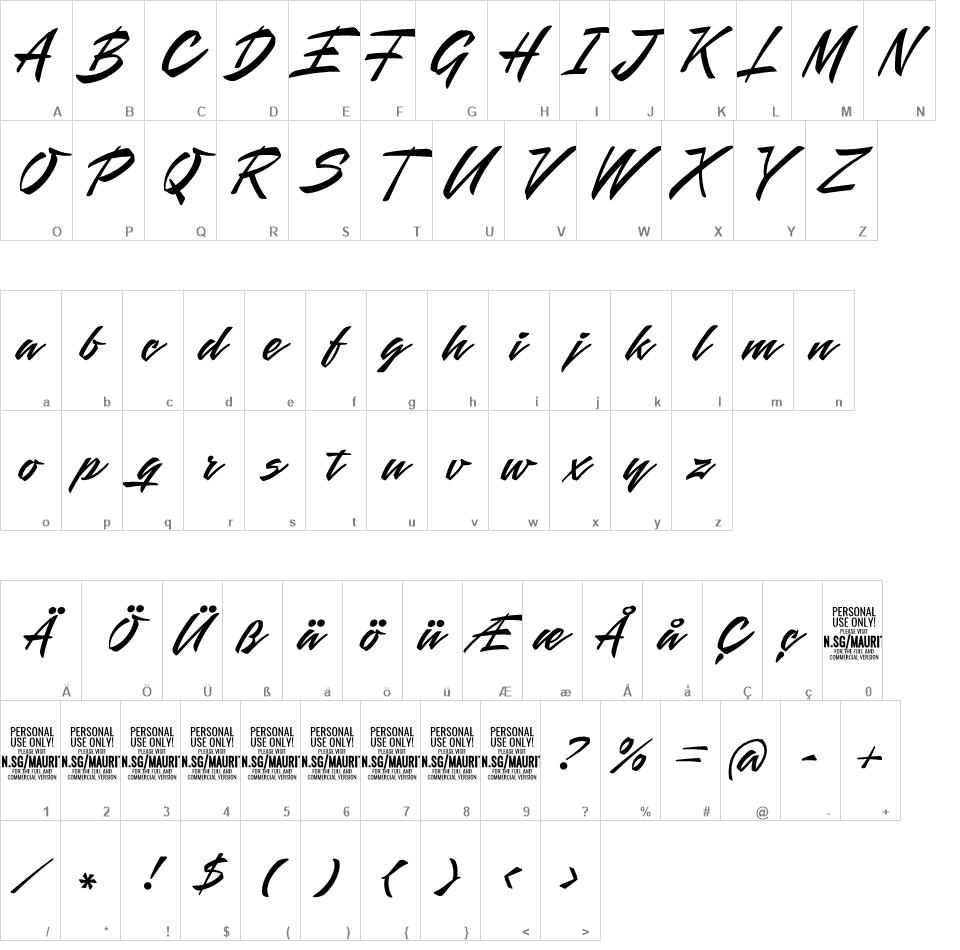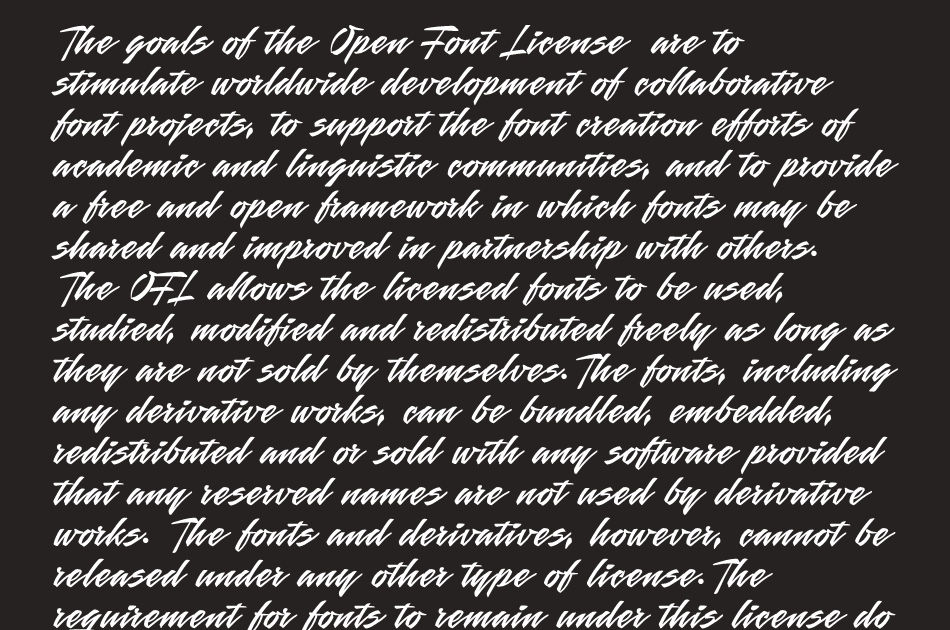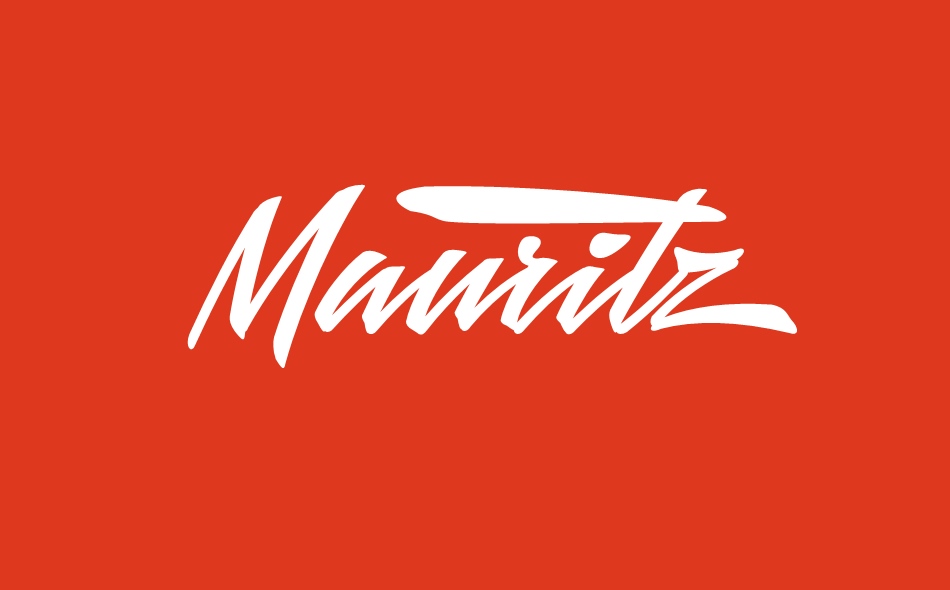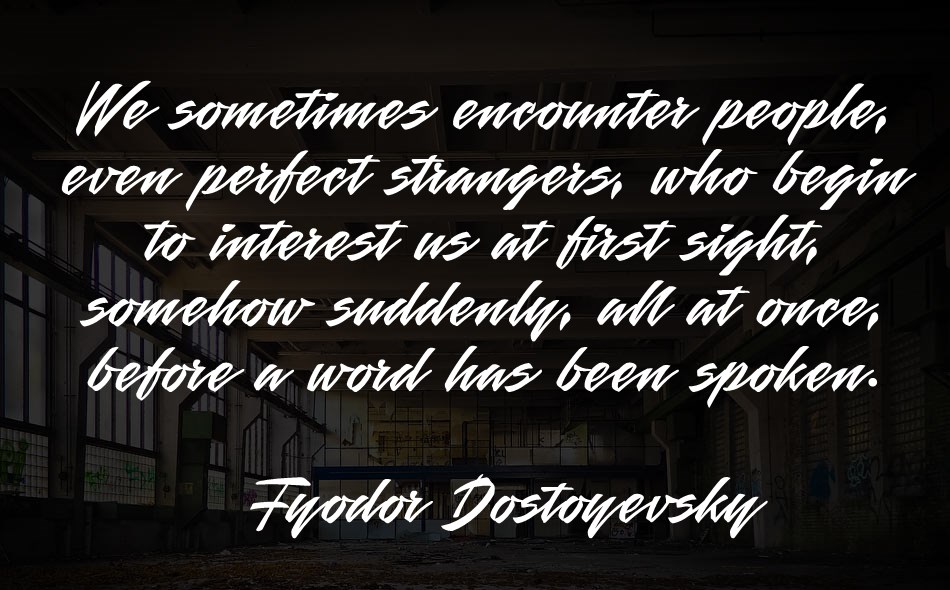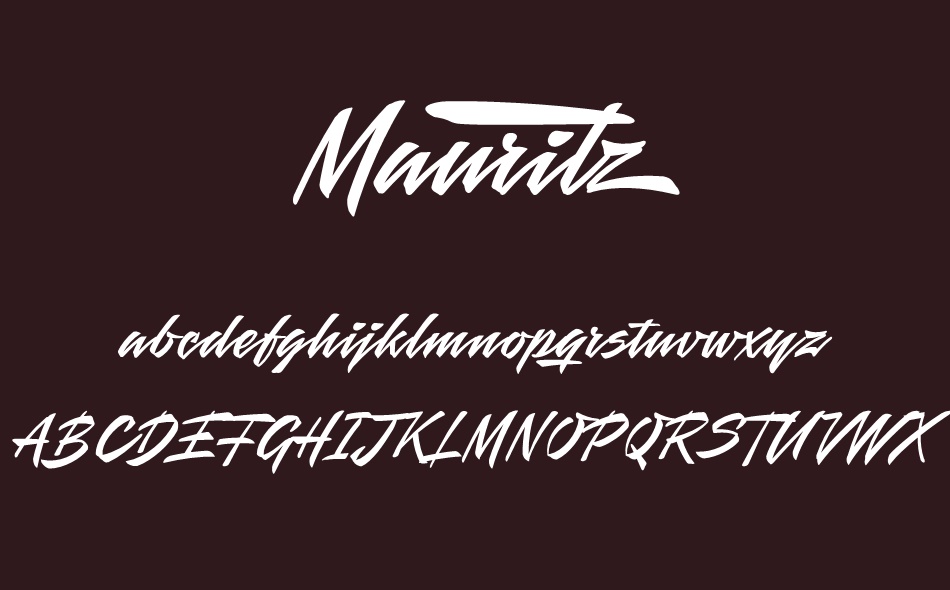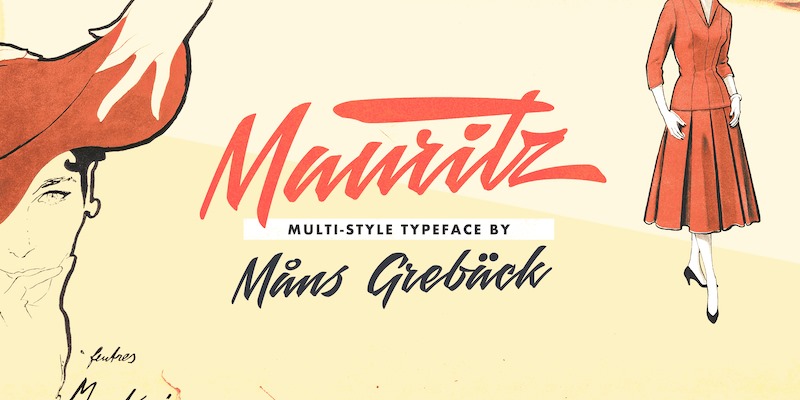
Mauritz font
Use underscore _ anywhere in a word to make a swash.
Example: Sign_ature
Use multiple underscores for different swashes.
Example: Supe______rcars
Mauritz is a brush script typeface.
A speedy handwriting, Mauritz was drawn and created by Mans Greback in 2021 to be the ultimate set of wild-style scripts for logotypes and branding.
This calligraphy family consists of 10 high-quality fonts in a great variety of weights and styles: Mauritz Thin, Light, Regular, Bold and Black, and each one as Italic.
The font is built with advanced OpenType functionality and has a guaranteed top-notch quality, containing stylistic and contextual alternates, ligatures and more features; all to give you full control and customizability. It has extensive lingual support, covering all Latin-based languages, from North Europe to South Africa, from America to South-East Asia. It contains all characters and symbols you'll ever need, including all punctuation and numbers.